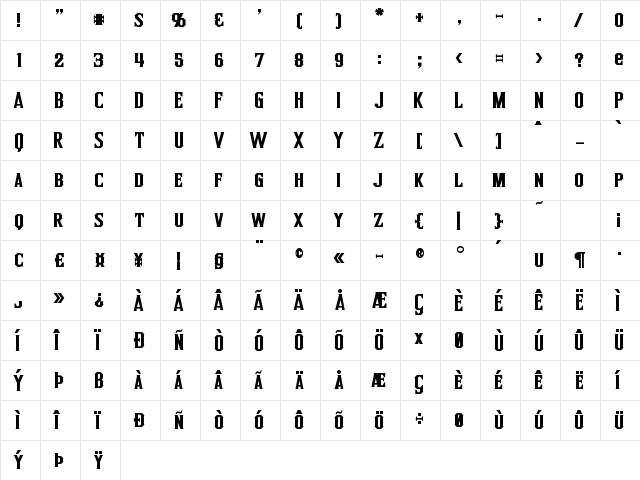
Inquisitor Bold
Bold · Pixel Sagas Neale Davidson ·
Design Context for Inquisitor Typeface
Inquisitor takes a measured approach to typography — its balanced proportions and neutral character make it a reliable workhorse for both digital and print work. Its bold stroke weight gives it real presence on the page.